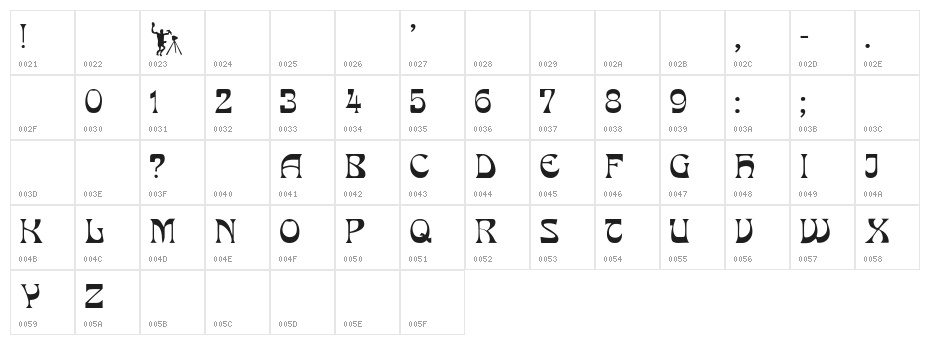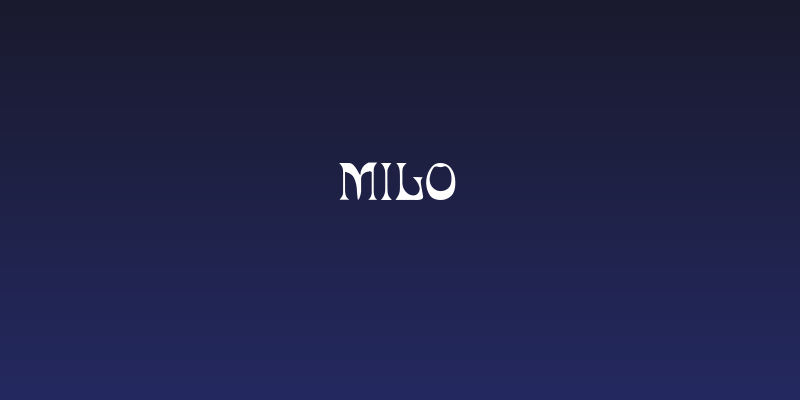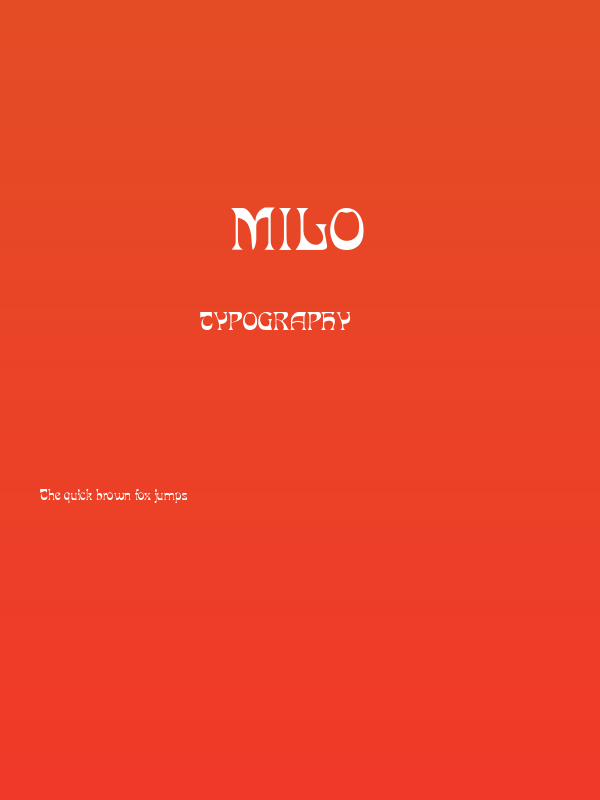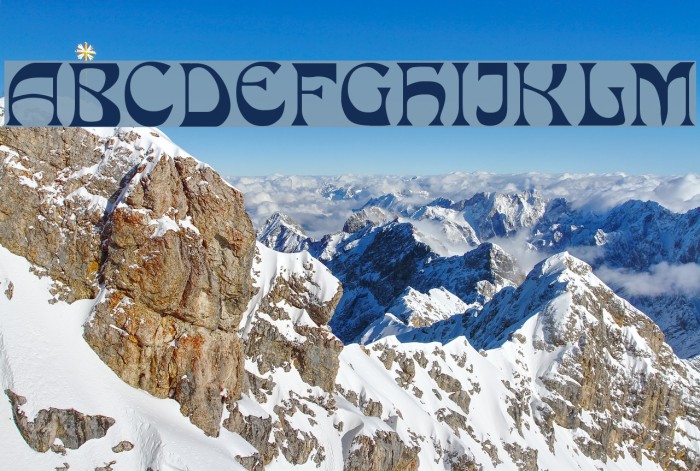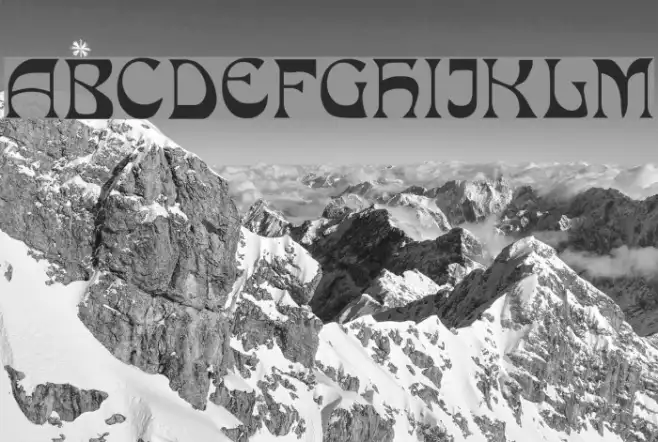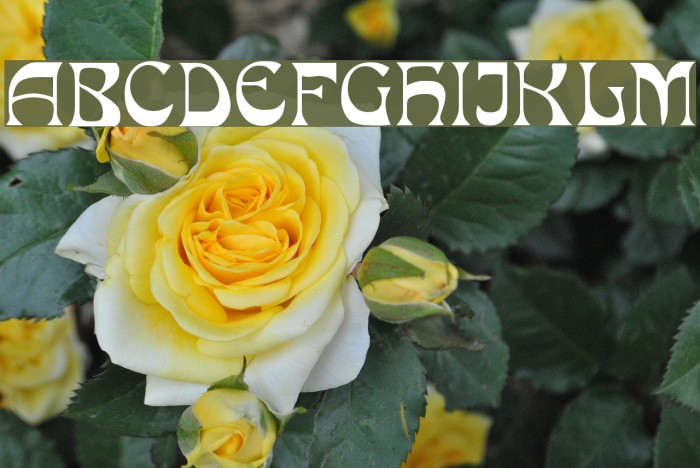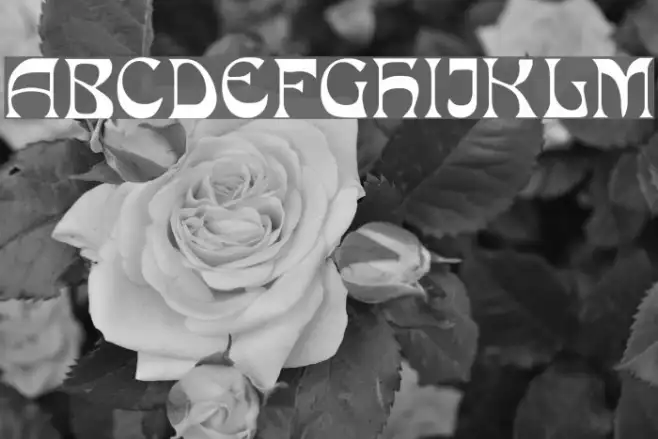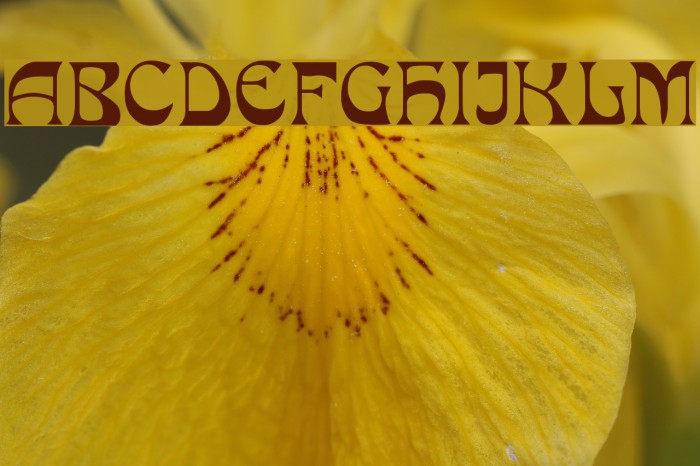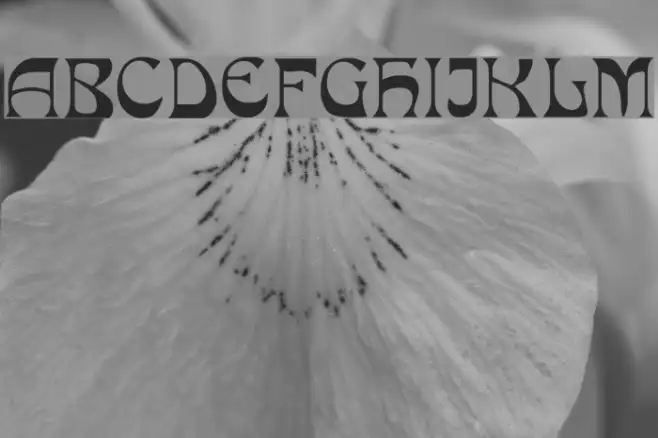
Milo Font
This font features a unique blend of modern and vintage styles, characterized by its bold, angular serifs and distinct letterforms. The uppercase letters exhibit a strong presence with sharp edges and a slight curvature, giving them a dynamic and eye-catching appearance. The lowercase letters maintain a consistent style, with a playful yet sophisticated look. The numerals are bold and clear, ensuring readability while maintaining the font's distinctive character. Special characters are creatively designed, adding to the font's overall artistic appeal. This font is perfect for projects that require a touch of elegance and creativity.
| Overall Style | Modern, Vintage |
| Proposed Projects | Ideal for branding, posters, book covers, and creative design projects. |